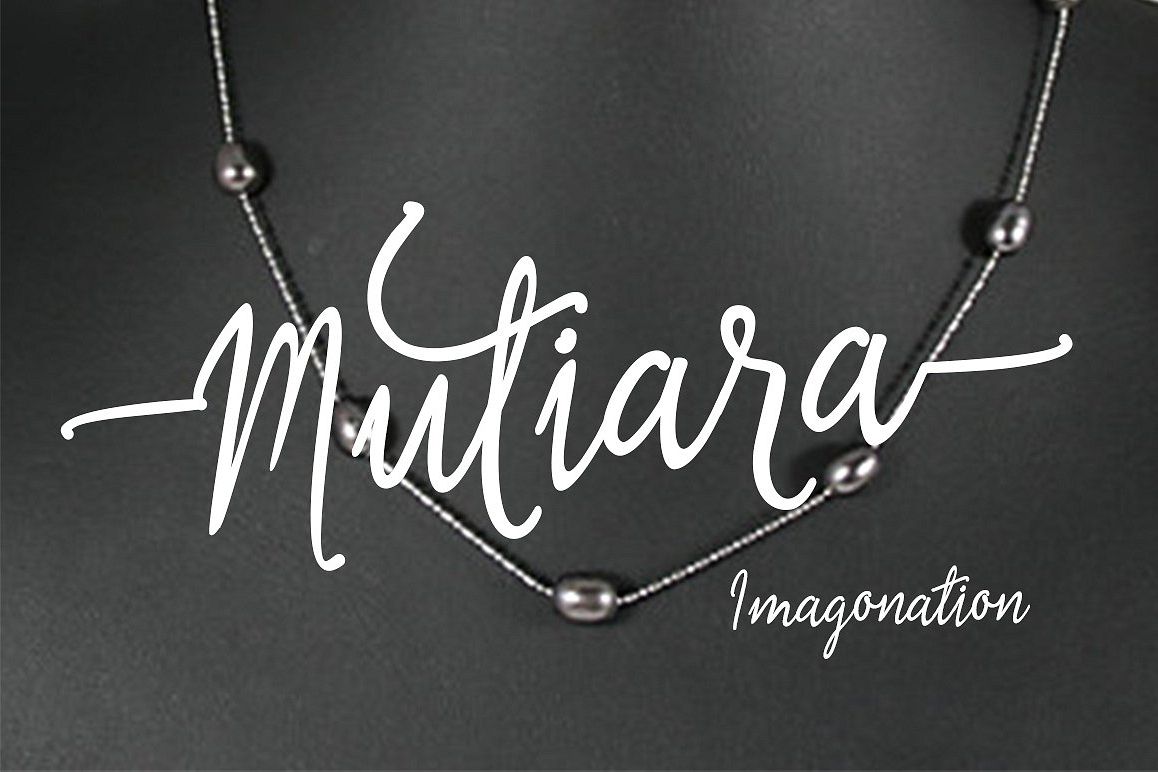
mutiara script
mutiara is a script font that has the characteristic nature, it is very suitable to make certain label and event business and you could be using for a unique piece.Files Included: